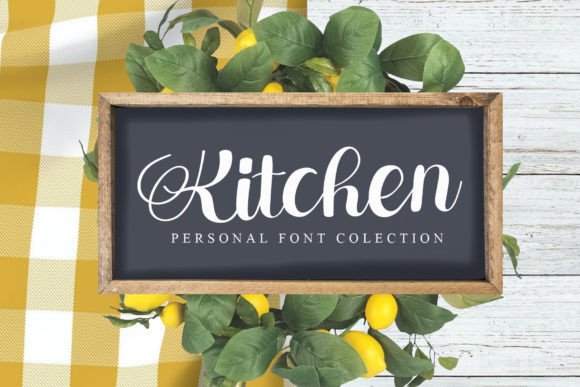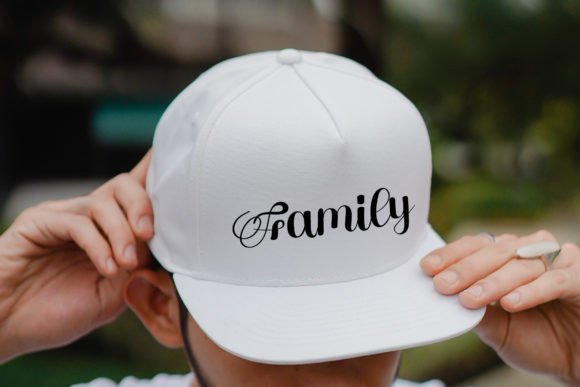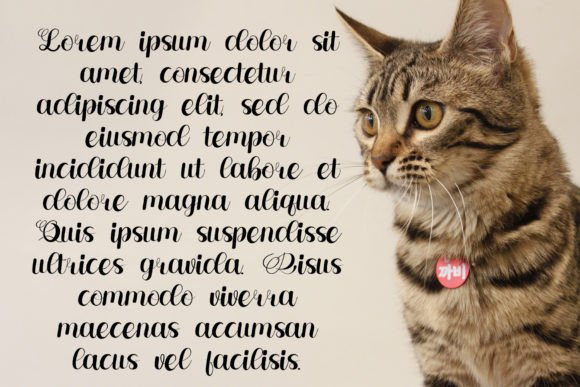
About School Font
**School** is not just a font; it’s a unique and elegant expression crafted for versatility and sophistication. This font is an ideal choice for a variety of designs, including invitation cards, greeting cards, party events, billboards, logos, business cards, and any project that benefits from a handwritten touch.
The allure of **School** is evident in its carefully designed features, showcasing varied baselines, fine lines, and beautiful glyphs that elevate your text to an exquisite level. The variation in baselines adds a dynamic and artistic touch, while the fine lines contribute to the font’s overall elegance. It’s a font that complements your work with a touch of refinement.
Whether you’re designing materials for invitations, creating eye-catching billboards, or establishing a unique brand identity with a logo, **School** is the font that elevates your text with a handwritten flair. Its adaptability allows it to seamlessly blend into various design contexts, ensuring that your projects stand out with elegance and sophistication.
In summary, **School** is the unique and elegant font designed for versatility and sophistication. With varied baselines, fine lines, and beautiful glyphs, it’s perfect for a range of projects, including invitation cards, greeting cards, billboards, logos, business cards, and more. Let your ideas shine with a font that adds a handwritten touch of elegance to your creations.